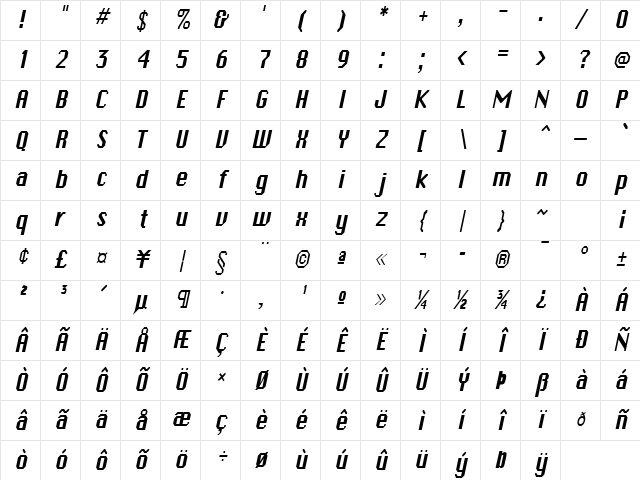
Ambush-Condensed Italic
Ambush-Condensed Family
Ambush-Condensed Italic
Design Context for Ambush-Condensed
Ambush-Condensed is a composed and adaptable typeface that performs quietly and consistently across a wide range of design contexts. The slanted form adds forward momentum and visual energy. Its narrow stance lets it pack a punch even in space-constrained designs.
Pro Tip: Use Ambush-Condensed for emphasis, pull quotes, and subheadings where its slanted energy can add rhythm to the layout.